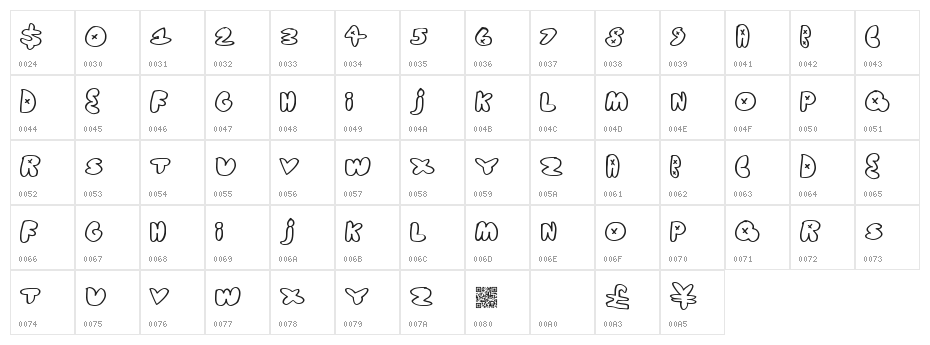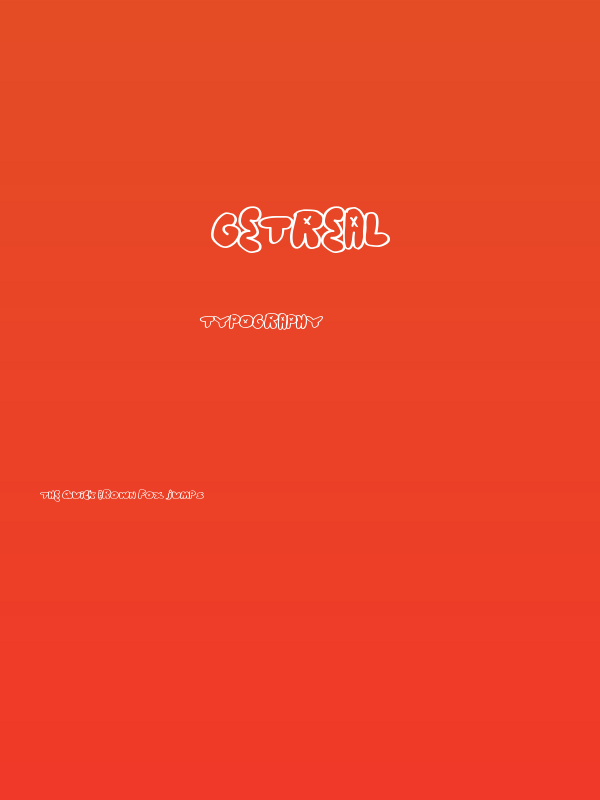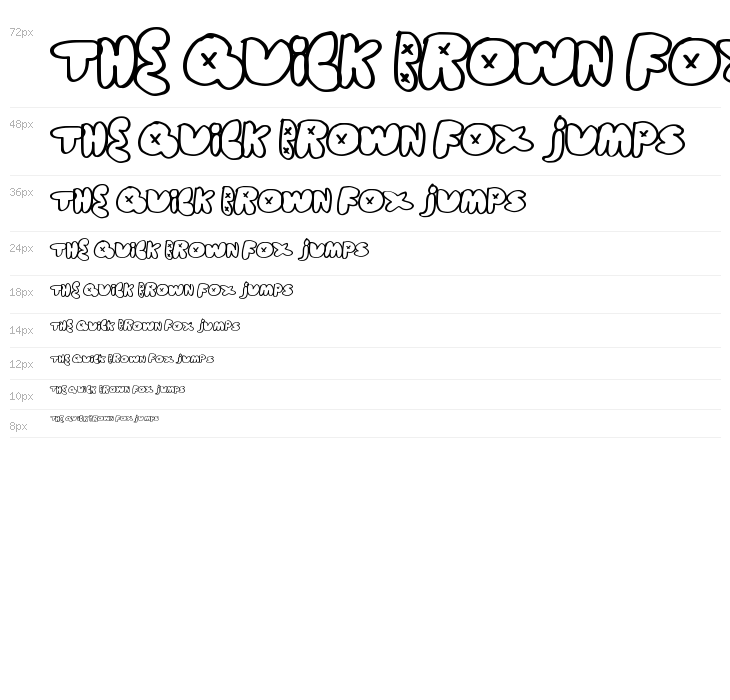
GetReal Font
GetReal Description
This playful and bold font features a bubble-like, rounded design with a unique, hand-drawn aesthetic. Each character is outlined, giving it a cartoonish and fun appearance. The letters are slightly irregular, adding to the whimsical feel. The font includes both uppercase and lowercase letters, numbers, and a selection of special characters. Its distinct style makes it stand out, perfect for projects that require a touch of creativity and humor. The font's design is consistent across all characters, maintaining a cohesive look.
| Overall Style | Playful, Cartoonish, Whimsical |
| Proposed Projects | Ideal for children's books, comic strips, playful branding, and creative posters. |